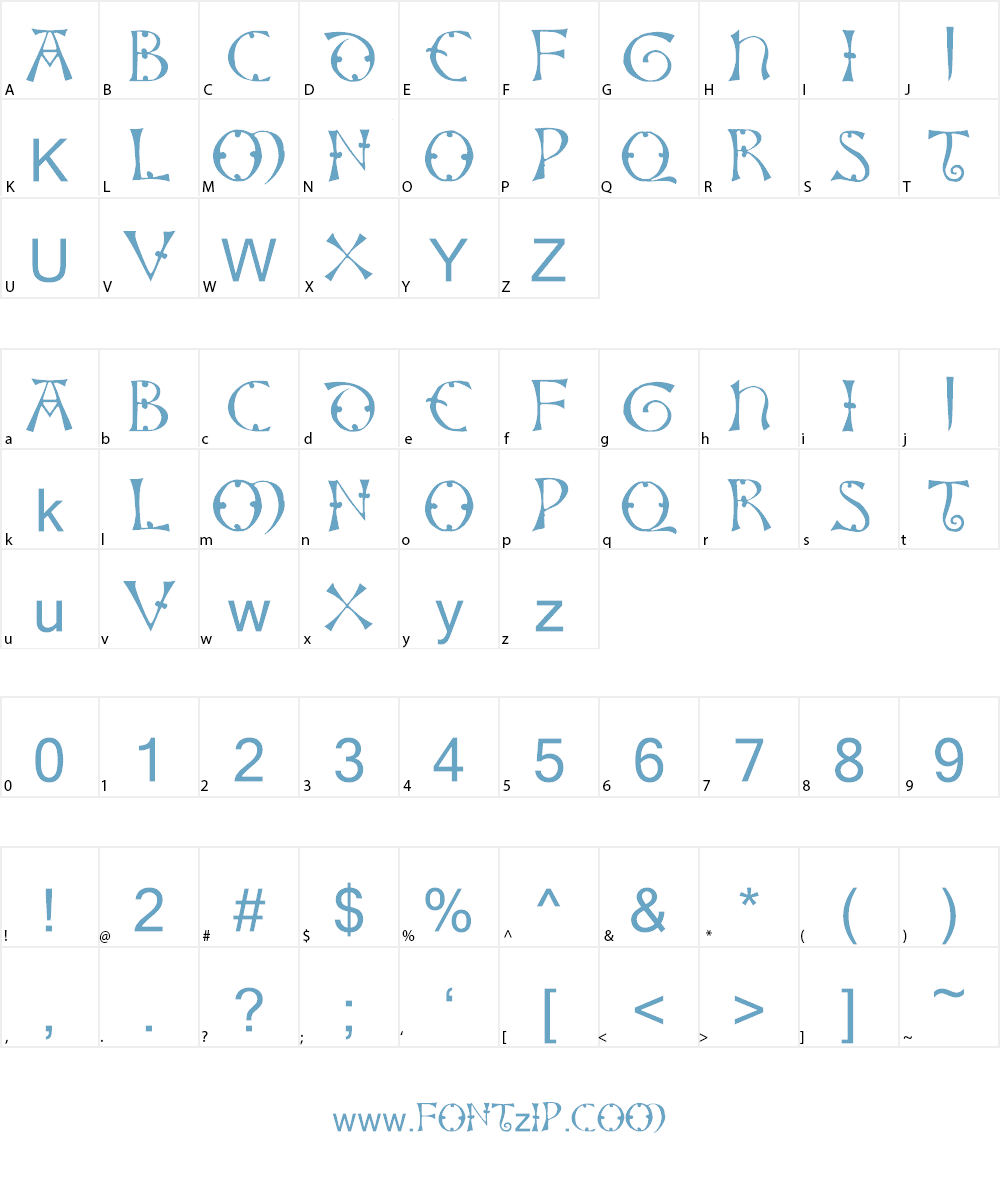
True Type and Open Type versions of the same font. Based on medieval inscriptions, this alphabet has no K, U (v is used for u), W, Y or Z, and no numbers (use letters for Roman numerals). The font includes both I and J, but for this period, the "J" is not really a j -- it is an alternate i usually used after another i, most often in Roman numerals (MCXIIJ) but sometimes in Latin plurals that would have two i's (genij).